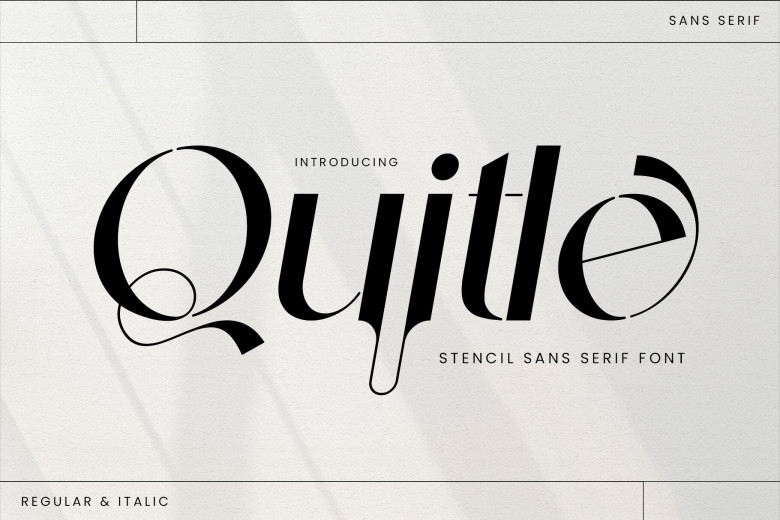
Quitle Font
Quitle Sans Serif combines regular sans serif and italic sans-serif typefaces into one elegant font, perfect for invitation card designs. It boasts sophisticated characters like an elegant serif that are also great for invitation card design.
Quitle Sans Serif offers subtle sans serif font with sophisticated characters as well as stylish ligatures and alternations which makes this font perfect for any project!
Quitle Sans Serif Font